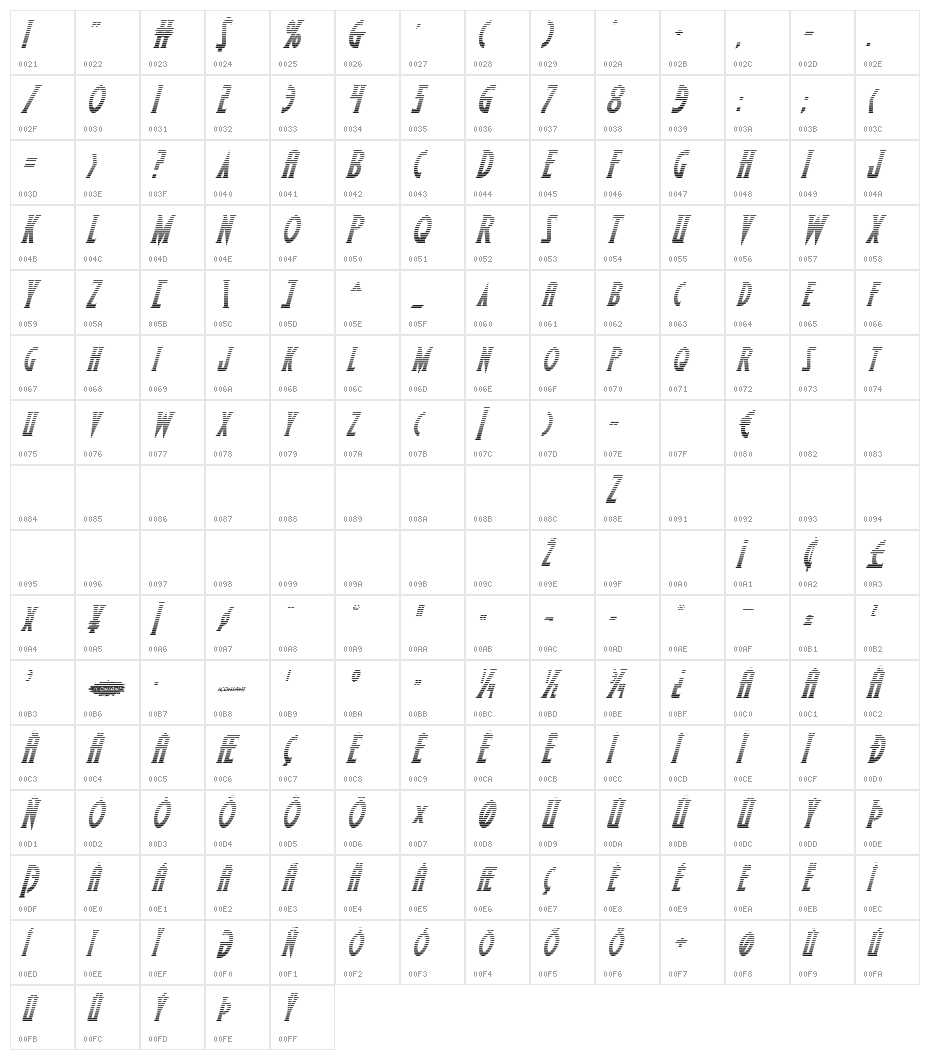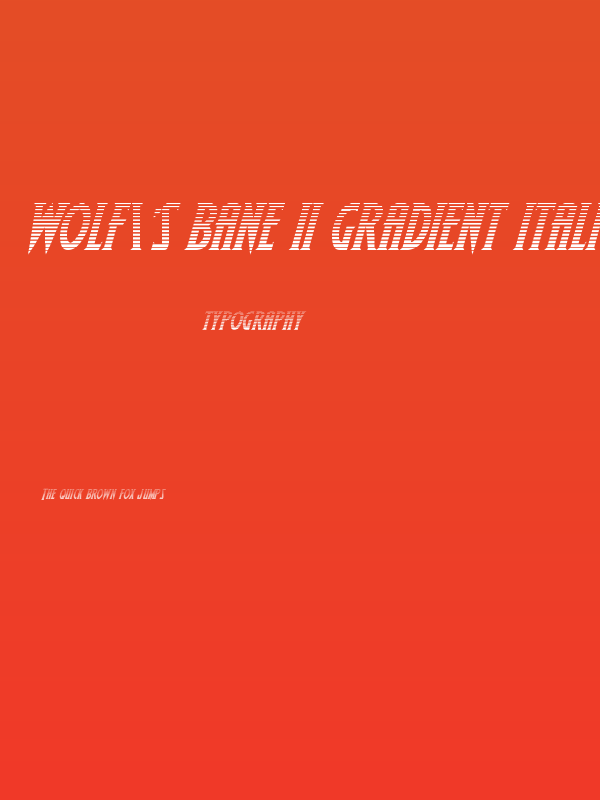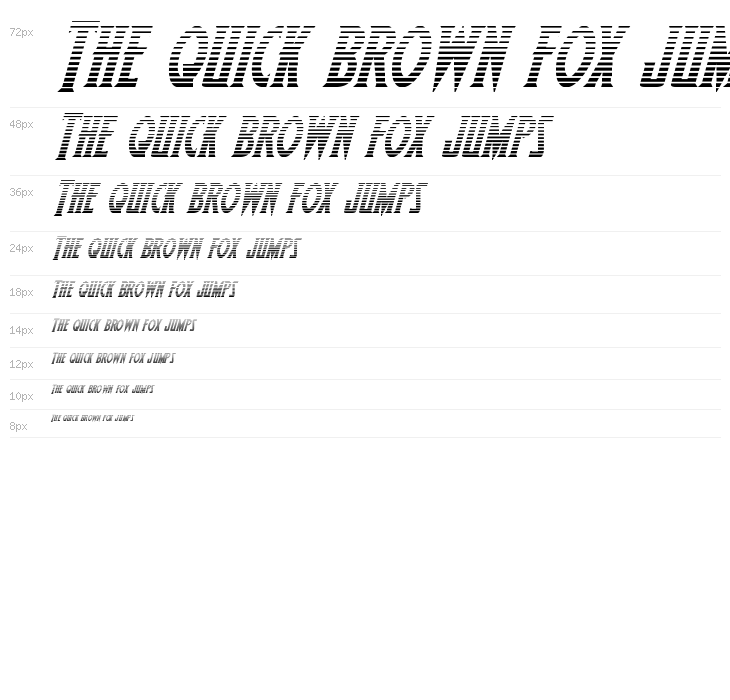
Wolf's Bane II Gradient Italic Font
Wolf's Bane II Gradient Italic Description
This font features a bold, italicized style with a unique gradient effect that gives it a dynamic and modern appearance. The characters are composed of horizontal lines that create a sense of movement and energy. The uppercase and lowercase letters maintain a consistent slant, enhancing the italicized look. The numbers and special characters follow the same design principles, ensuring uniformity across all glyphs. This font's distinct style makes it suitable for attention-grabbing headlines and creative projects where a bold statement is desired.